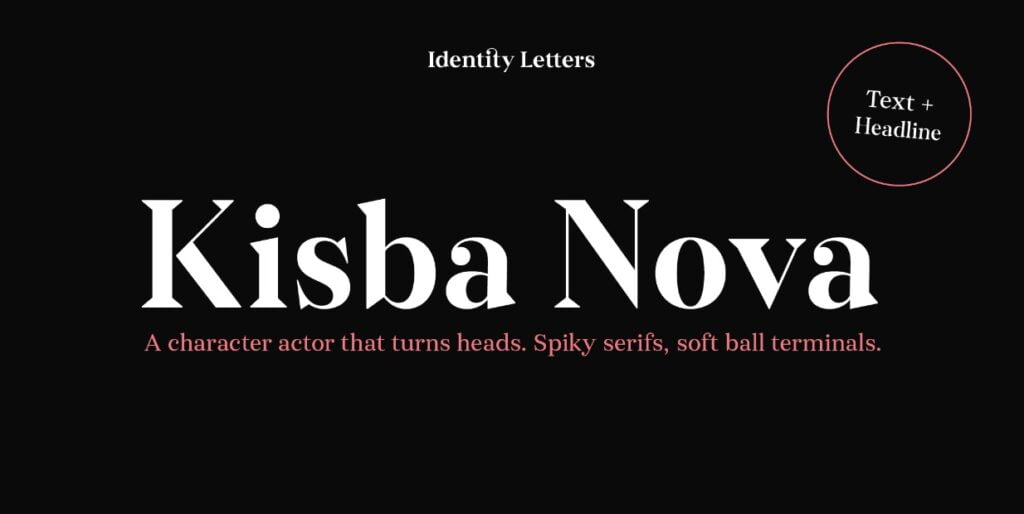
Kisba Nova Font
Kisba Nova Serif Font is that one guest who joins a party, and a murmur goes through the crowd. Kisba Nova is pure charisma. Opposites attract: Kisba Nova combines sharp wedge serifs and spiky spurs with round and soft ball terminals. Infuse this with a neoclassical stroke contrast and you get a thrilling typeface driven by visual extremes.
The Kisba Nova Headline subfamily is flaunts the trademark flamboyant looks and extravagant letters like f and k. They bring you all of the excitement of the showbiz in large applications—use it for sizes of 24 Pt. and more. The extraordinarily designed, thin and monolinear diacritics, punctuation marks, and symbols of Kisba Nova Headline add to this modern and elegant character.